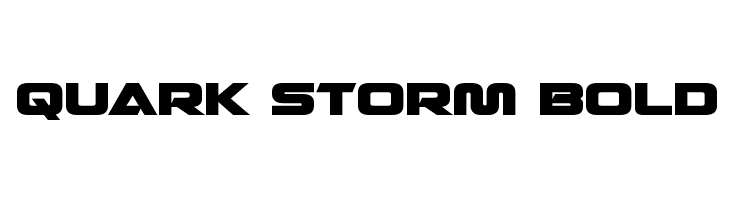
A bold, futuristic font with sharp angles and geometric shapes.
A rounded, bold font with a modern and approachable style.
A bold, angular font with sharp edges and a modern aesthetic.
An artistic and modern font with elegant curves and angular cuts.
A bold, dripping font with a spooky, horror-themed style.
An elegant, calligraphic font with sharp serifs and flowing curves.
A sleek, modern italic sans-serif font with smooth curves and consistent strokes.